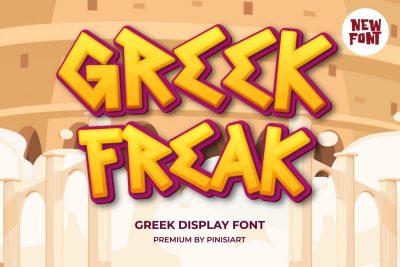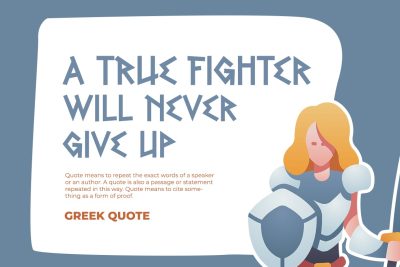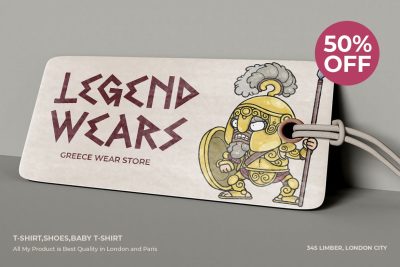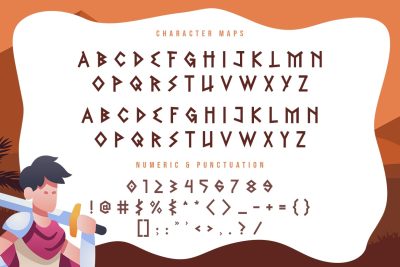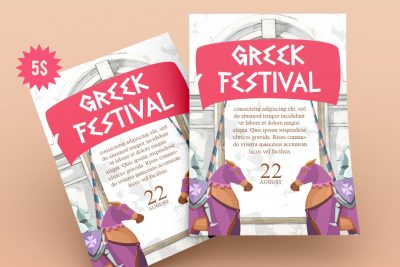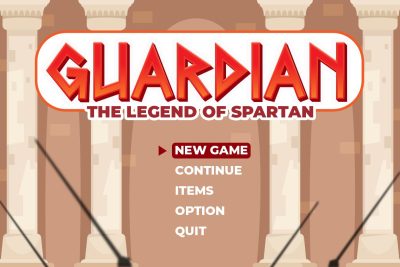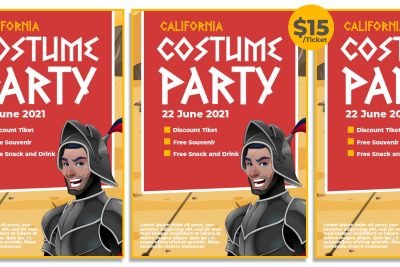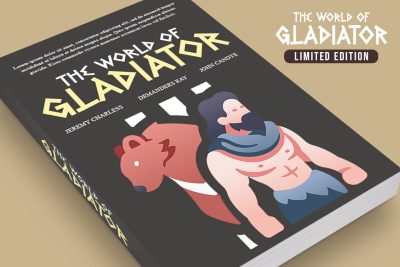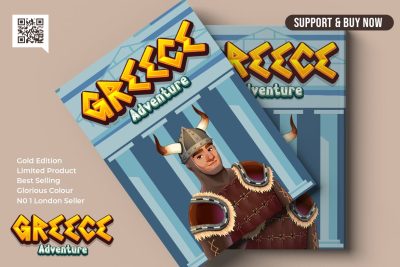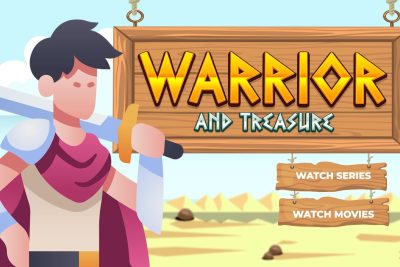
Gaming Font greek freak
Greek Freak
Gaming Font Greek Freak brings a bold and eye-catching design that instantly transforms your creative projects. Inspired by ancient Greek aesthetics with a playful twist, this font combines modern flair with classic influences. Its chunky, geometric letterforms are ideal for gaming titles, branding, and projects that demand a vibrant and energetic touch. Whether you’re designing for adventure-themed games or playful promotions, this font ensures your message stands out with a unique and striking style.
Moreover, the Gaming Font Greek Freak offers excellent readability while maintaining a bold personality. Its dynamic design makes it suitable for posters, banners, game logos, or any content aimed at capturing the audience’s attention. By blending sharp outlines with vibrant colors, the font exudes a lively energy that complements both gaming content and interactive media.
Gaming Font Greek Freak, Versatile and Perfect for Gaming and Creative Projects
Gaming Font Greek Freak caters to the gaming and creative design market by offering an expressive yet functional typographic solution. It works seamlessly in both digital and print formats, ensuring your designs look sharp and engaging across all platforms. Furthermore, its bold and vibrant style makes it particularly effective for gaming titles, e-sports branding, and adventure-themed merchandise.
In addition, this font adapts effortlessly to various creative projects. Whether you’re creating bold headlines, interactive web designs, or themed packaging, Greek Freak enhances the visual appeal of your work. Its playful structure and vivid energy amplify your designs, helping them resonate with gamers, adventurers, and fun-loving audiences alike.
With its unique mix of ancient inspiration and modern playfulness, this typeface enables you to build visually striking projects. Its versatility and charm make it an excellent choice for anyone looking to bring bold ideas to life. Ultimately, Greek Freak isn’t just a font; it’s a gateway to eye-catching and memorable design.
In the era of madness, Greek Freak will bring the mythology and all that epic god vs human war to the present day. The gladiators, the battle of praetorians, the castle siege, all of that… will be brought to life with this font.